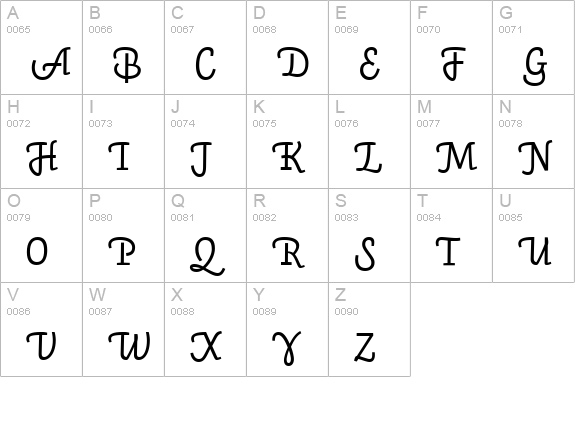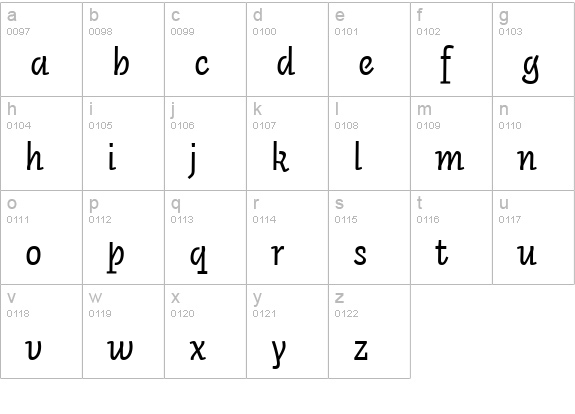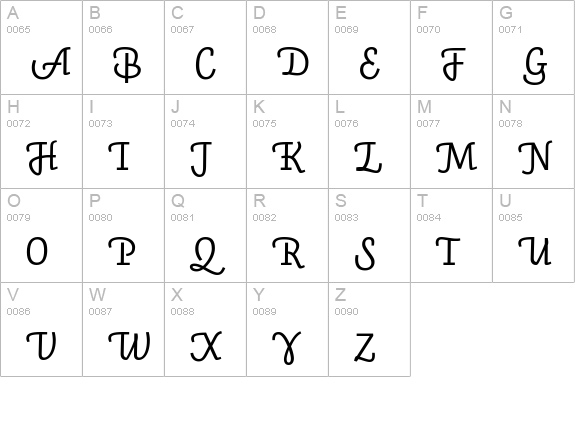
Auto 3 Italic LF Font Details
Auto 3 Italic LF is a distinctive, italic variant in the Auto typeface family \xE2\x80\x94 well suited to design and typography projects.
Auto 3 Italic LF font is a sleek and modern typeface that exudes sophistication and elegance. Its italicized design adds a touch of flair to any project, making it perfect for use in branding, advertising, and creative designs. The clean lines and stylish curves of this font make it a versatile choice for a wide range of applications. What's even better is that Auto 3 Italic LF font is available for free download at FontsMarket.com. This means that you can easily access this high-quality font without any cost, making it a valuable addition to your font library. Whether you're working on a professional project or a personal creative endeavor, Auto 3 Italic LF font is sure to elevate your designs with its modern and sophisticated aesthetic. Download it now and unleash the full potential of your typography!